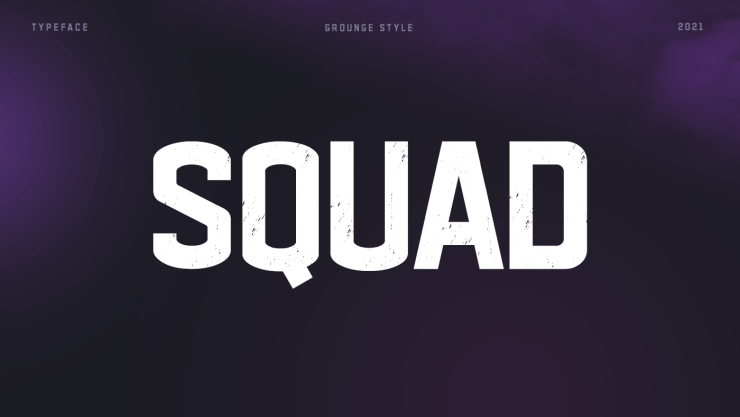
Squad – A new modern Sans Serif font. This bold, succinct typeface is ready to grab attention. It’s perfect for headlines, posters, paragraph text, the web, and more. It contains upper and lower case characters, numbers, and a few symbols.